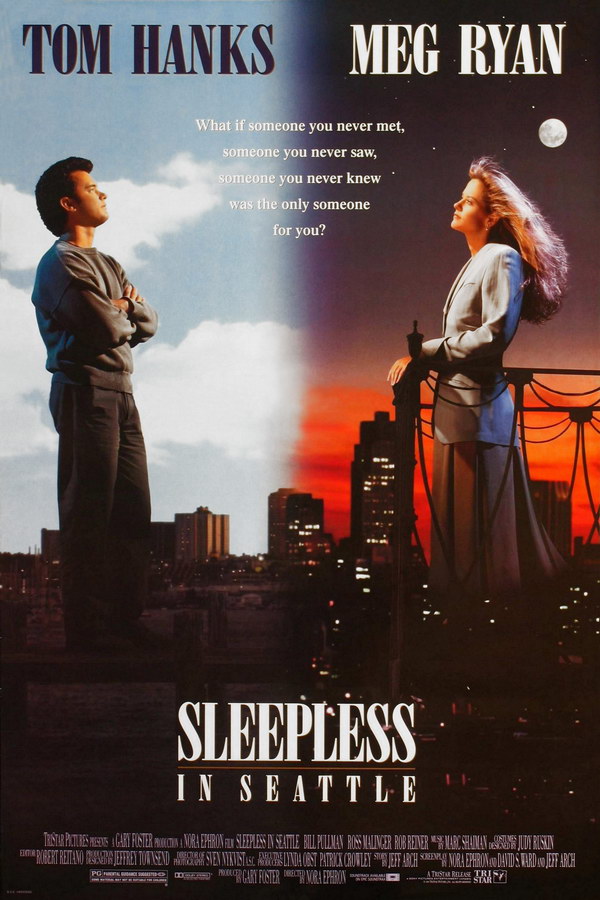
Sleepless in Seattle Font
Fonts in UseSleepless in Seattle is a 1993 romantic comedy film starring Tom Hanks and Meg Ryan. The movie follows the story of a widower who, with the help of his young son, connects with a journalist through a radio show and sparks a transcontinental love affair.
It's likely that the font used for the movie title on the poster is Bodoni Poster Compressed, which was designed by Chauncey H. Griffith. This is a commercial font, and you can find more information about it here.